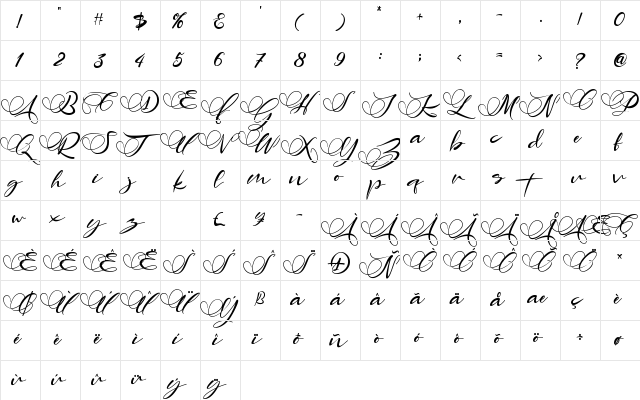
Angelin Regular
Design Context for Angelin Typeface
Angelin is a composed and adaptable typeface that performs quietly and consistently across a wide range of design contexts.